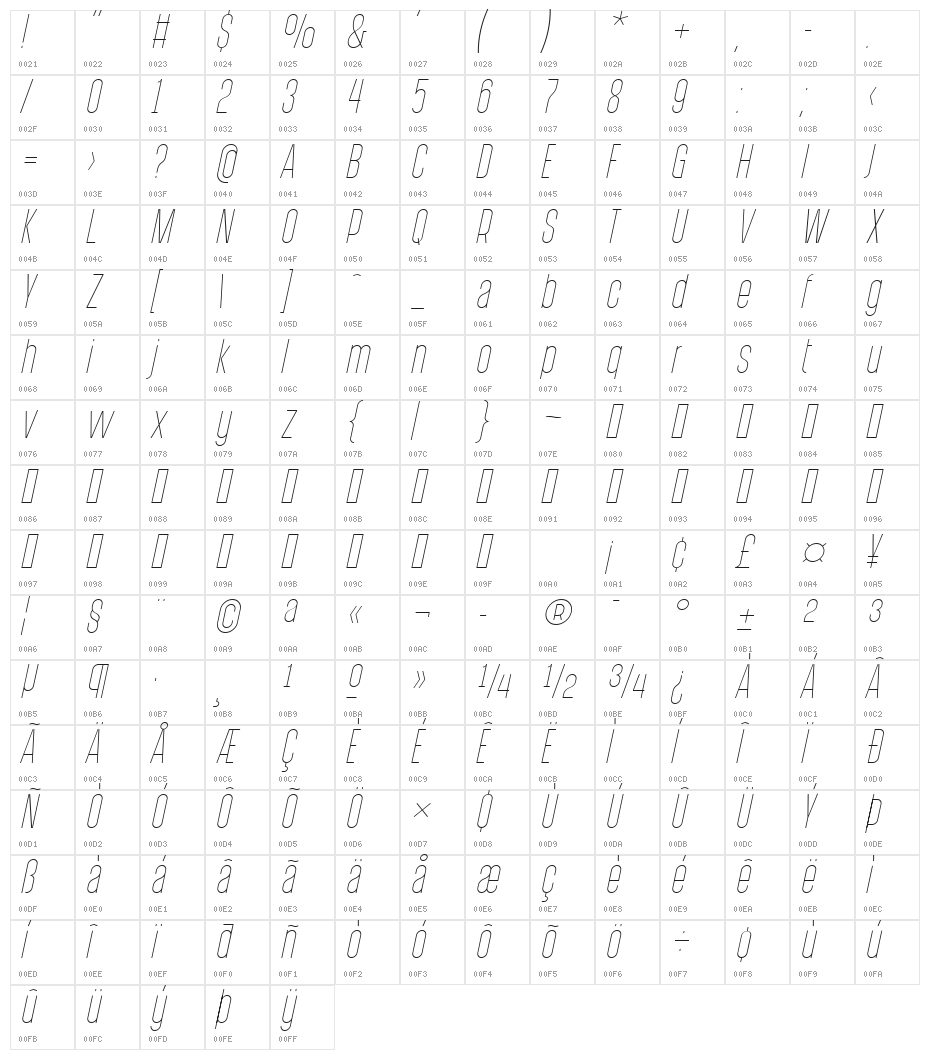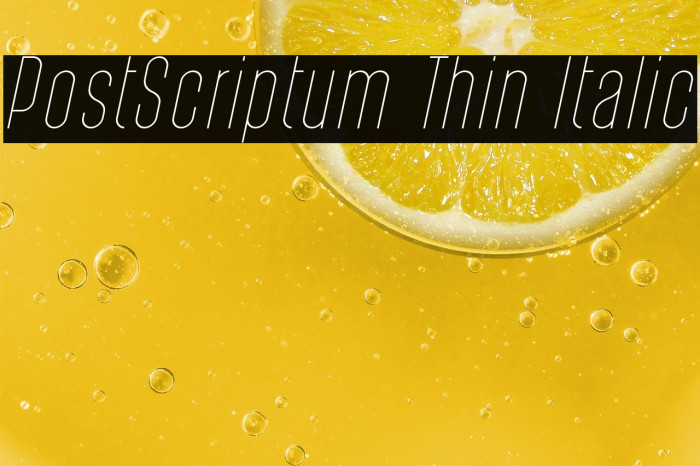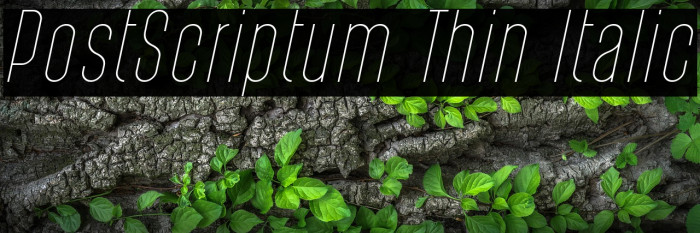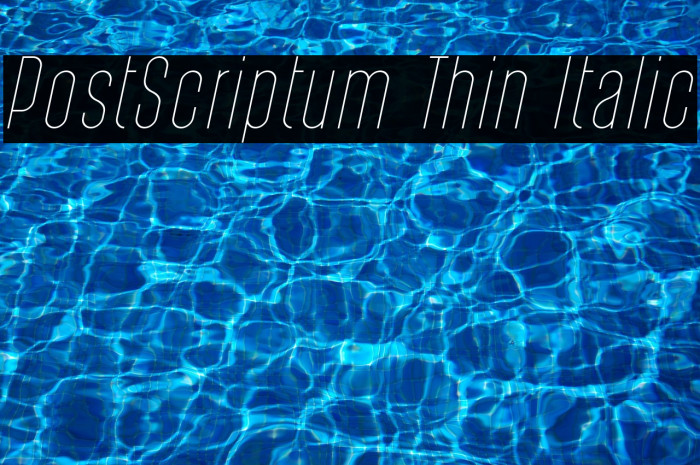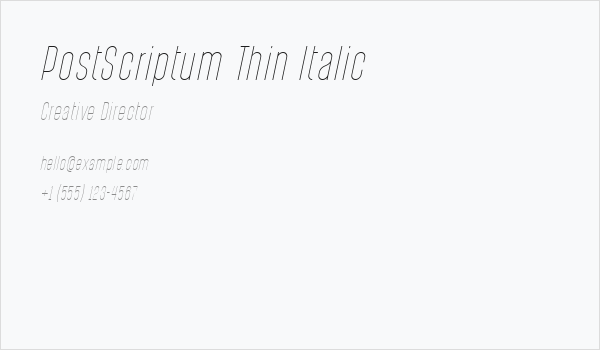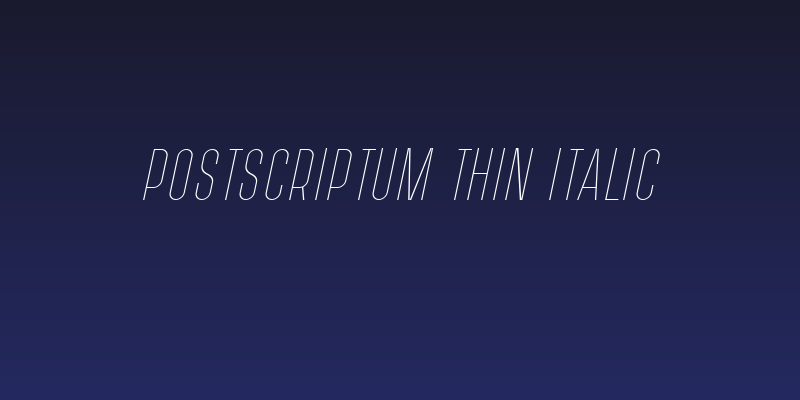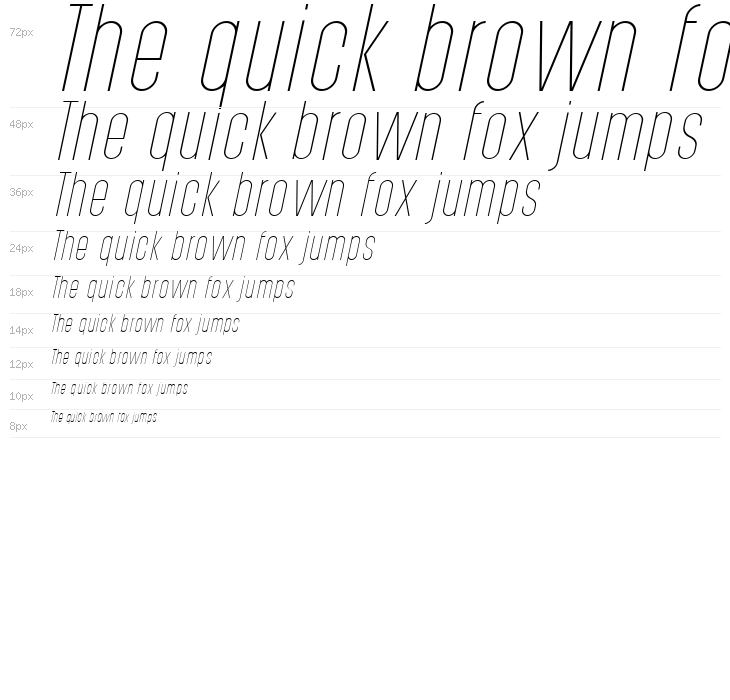
PostScriptum Thin Italic Font
PostScriptum Thin Italic Description
This font features a sleek and elegant design with a thin, italicized style. The characters are elongated and slightly slanted, giving a sense of motion and sophistication. The strokes are consistently thin, providing a delicate and refined appearance. The uppercase and lowercase letters maintain a uniform height, while the numbers and special characters integrate seamlessly with the overall aesthetic. This font's minimalist design makes it suitable for modern and stylish applications.